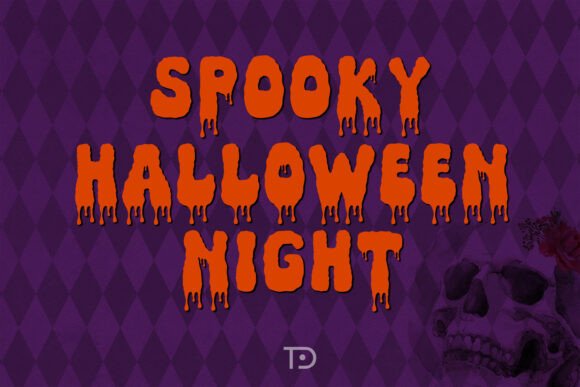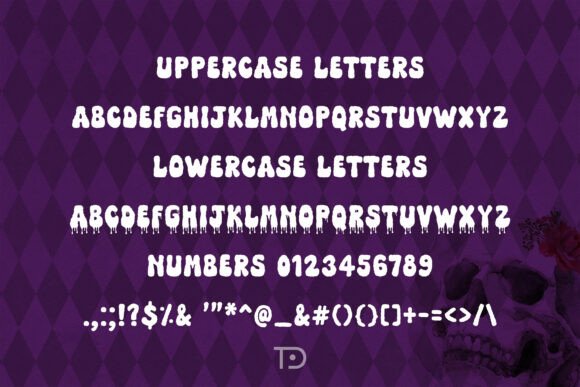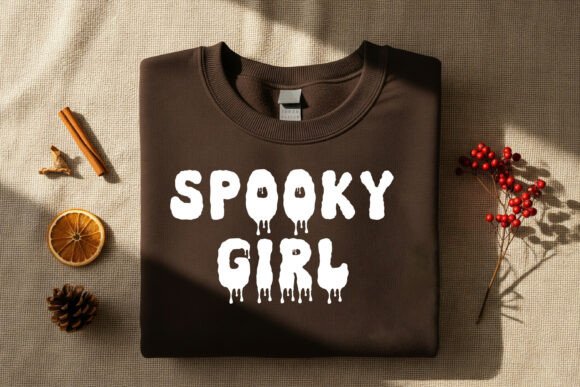
Introduction to Booo Dripping Font
Booo Dripping is a spooky Halloween font.
It is a perfect choice for any project such as party invitations, spooky signage, and bewitching crafts Let your words cast a bewitching spell this Halloween.